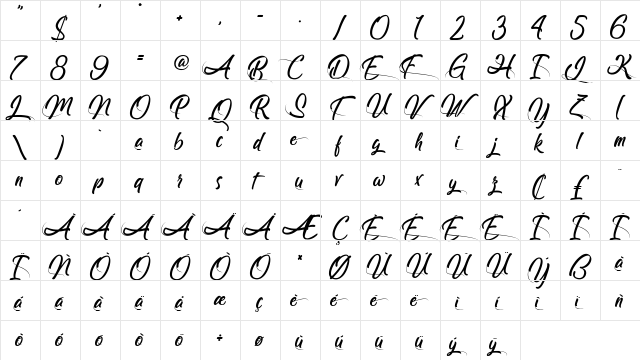
Follow Me Regular
| Foundry | Typhoon Type - Suthi Srisopha |
| Designer | Typhoon Type - Suthi Srisopha |
Design Context for Follow Me Typeface
Follow Me is a composed and adaptable typeface that performs quietly and consistently across a wide range of design contexts.